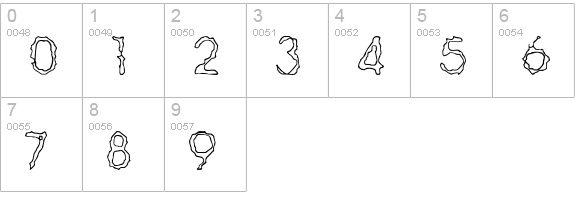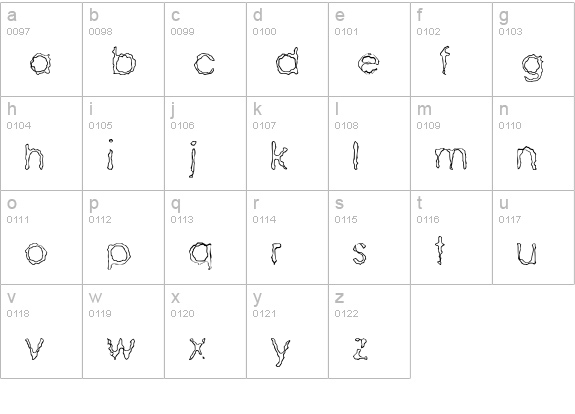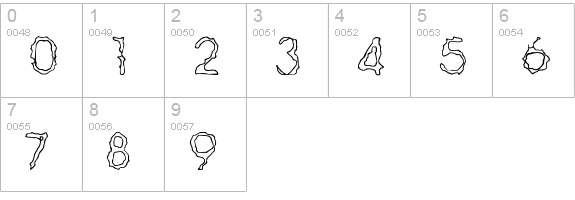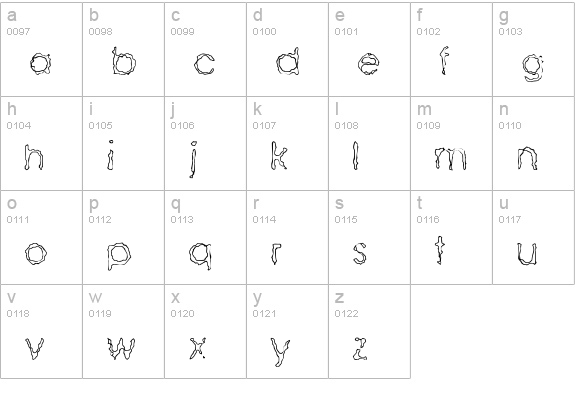
Ravaged By Years (BRK) Font Details
Ravaged By Years (BRK) font is a captivating and unique typeface that beautifully captures the essence of time's relentless passage. It exudes a sense of age and weathering, as if each character has been worn down by years of use and exposure to the elements. This font is a stunning choice for projects that require a touch of nostalgia and a hint of history. Whether you're designing a vintage-themed poster, creating a retro logo, or adding a distinctive flair to your website's headlines, Ravaged By Years (BRK) font will effortlessly transport your audience to bygone eras. What's even better is that this extraordinary font is available for free! You can easily download Ravaged By Years (BRK) font at FontsMarket.com. The website offers a vast collection of high-quality fonts, and Ravaged By Years (BRK) font is just one of the many treasures you can discover there. By making this font freely available, FontsMarket.com ensures that designers, artists, and enthusiasts can access and utilize this exceptional typeface without any limitations. With its evocative charm, Ravaged By Years (BRK) font is a must-have addition to any font library. Its weathered appearance and timeless appeal will bring a touch of authenticity and character to any creative project. So don't miss out on the opportunity to download this extraordinary font for free at FontsMarket.com and unleash its captivating power in your designs.